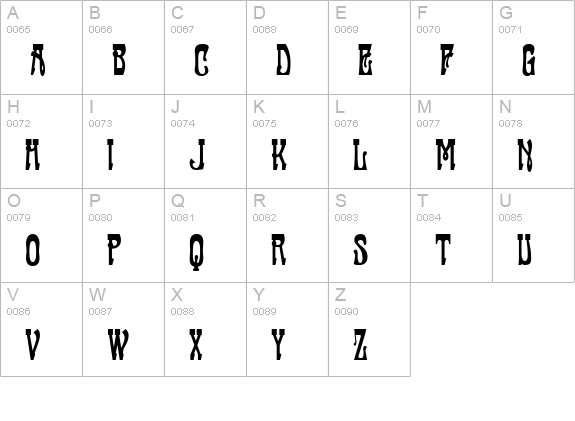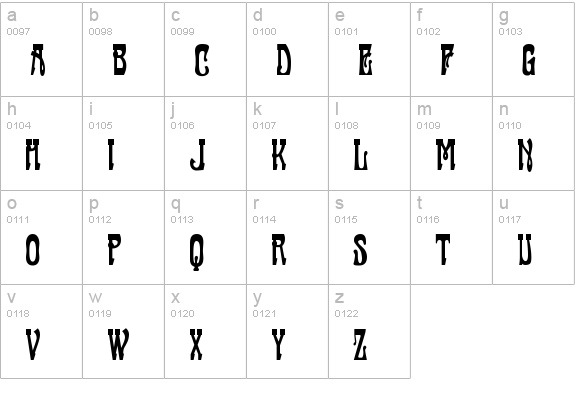
Fanfare MF Fancy Font Details
Fanfare MF Fancy font is a beautifully designed typeface that exudes elegance and sophistication. With its intricate details and unique styling, this font is perfect for adding a touch of class to any project. The ornate flourishes and graceful curves of Fanfare MF Fancy font make it a standout choice for invitations, logos, and other design projects where a touch of luxury is desired. What's even better is that Fanfare MF Fancy font is available for free download at FontsMarket.com. This means you can easily access this stunning font and use it in your creative endeavors without any cost. Don't miss out on the opportunity to elevate your designs with the timeless beauty of Fanfare MF Fancy font, available for free at FontsMarket.com.